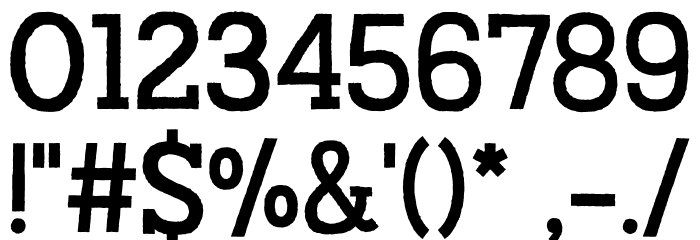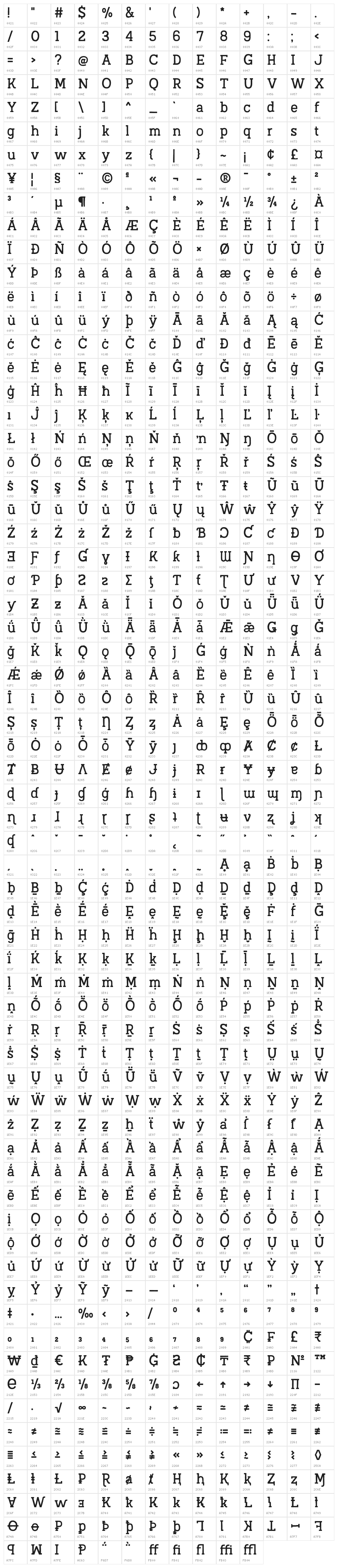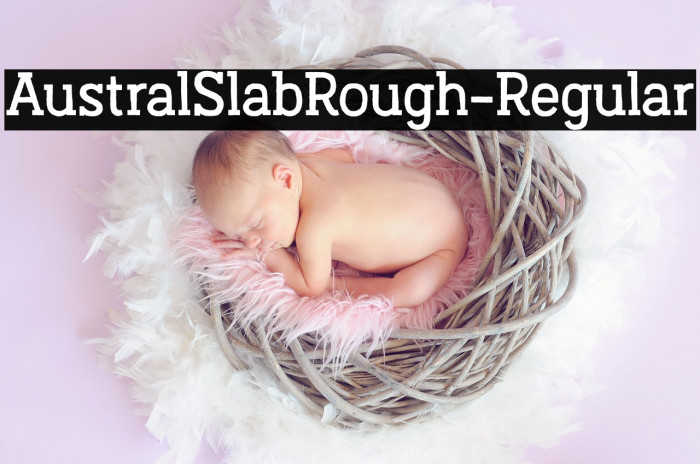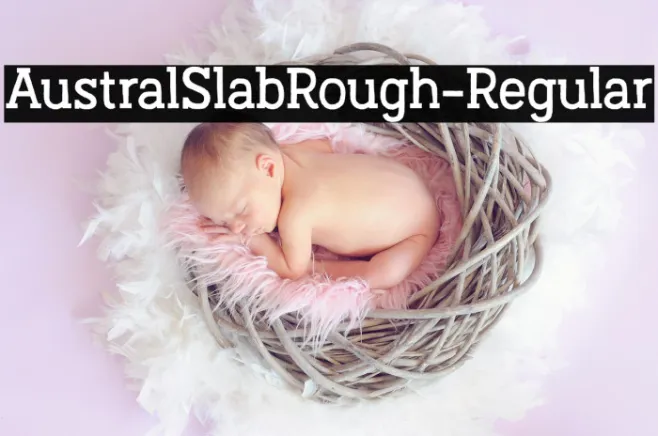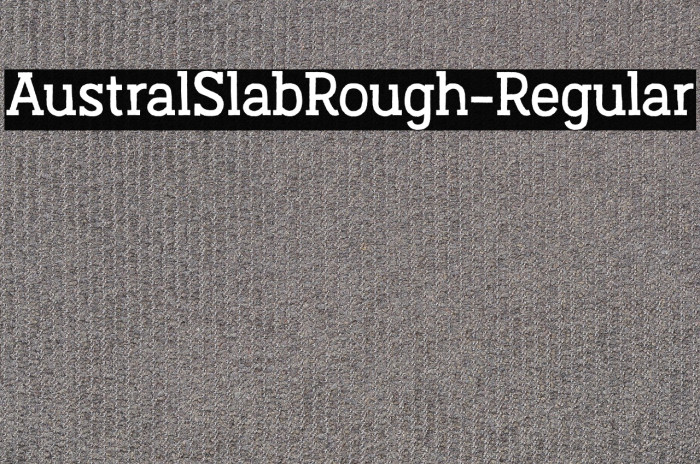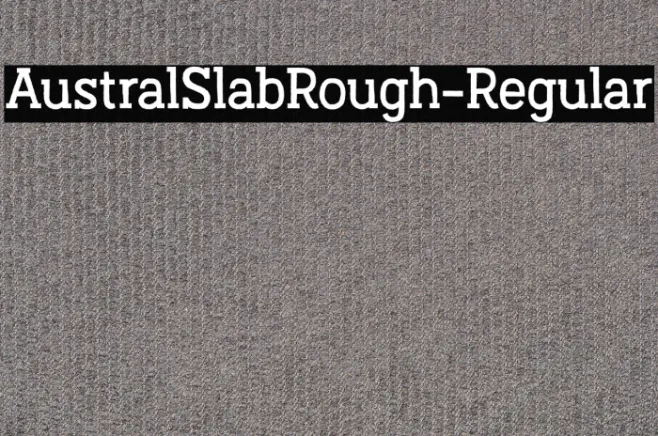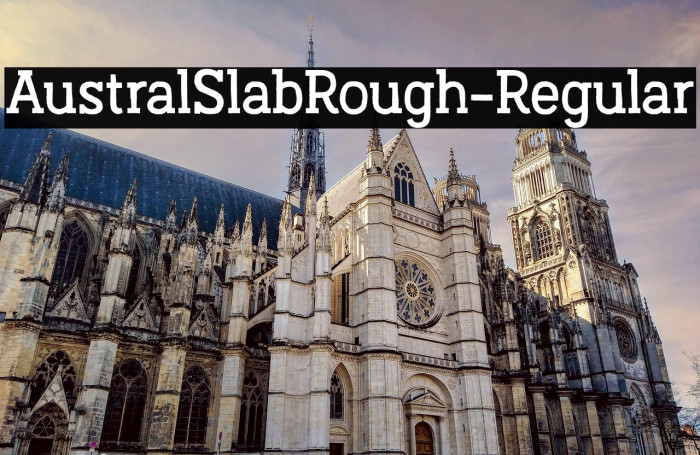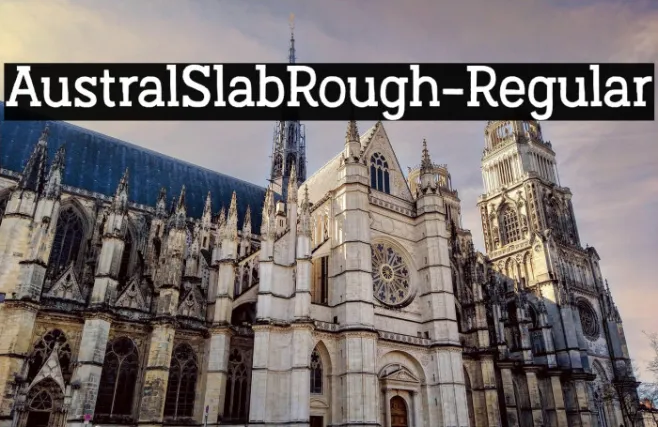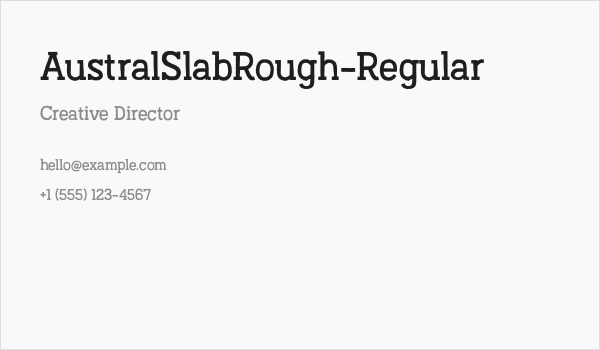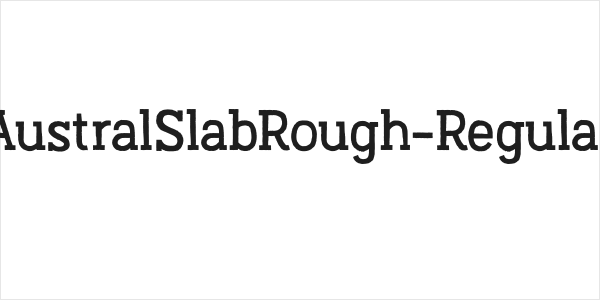
AustralSlabRough-Regular Font
AustralSlabRough-Regular Description
This font features a rugged and textured appearance, giving it a distinctive and handcrafted feel. The slab serif design is characterized by thick, block-like serifs that provide a strong, sturdy look. The rough texture adds a vintage and organic touch, making it ideal for projects that require a rustic or artisanal aesthetic. The uppercase and lowercase letters maintain a consistent style, with a slight variation in stroke thickness that enhances its visual interest. The numerals and special characters are designed to match the overall style, ensuring a cohesive look across all text elements.
| Proposed Projects | Ideal for branding, packaging, posters, and any design project seeking a rustic or vintage aesthetic. |